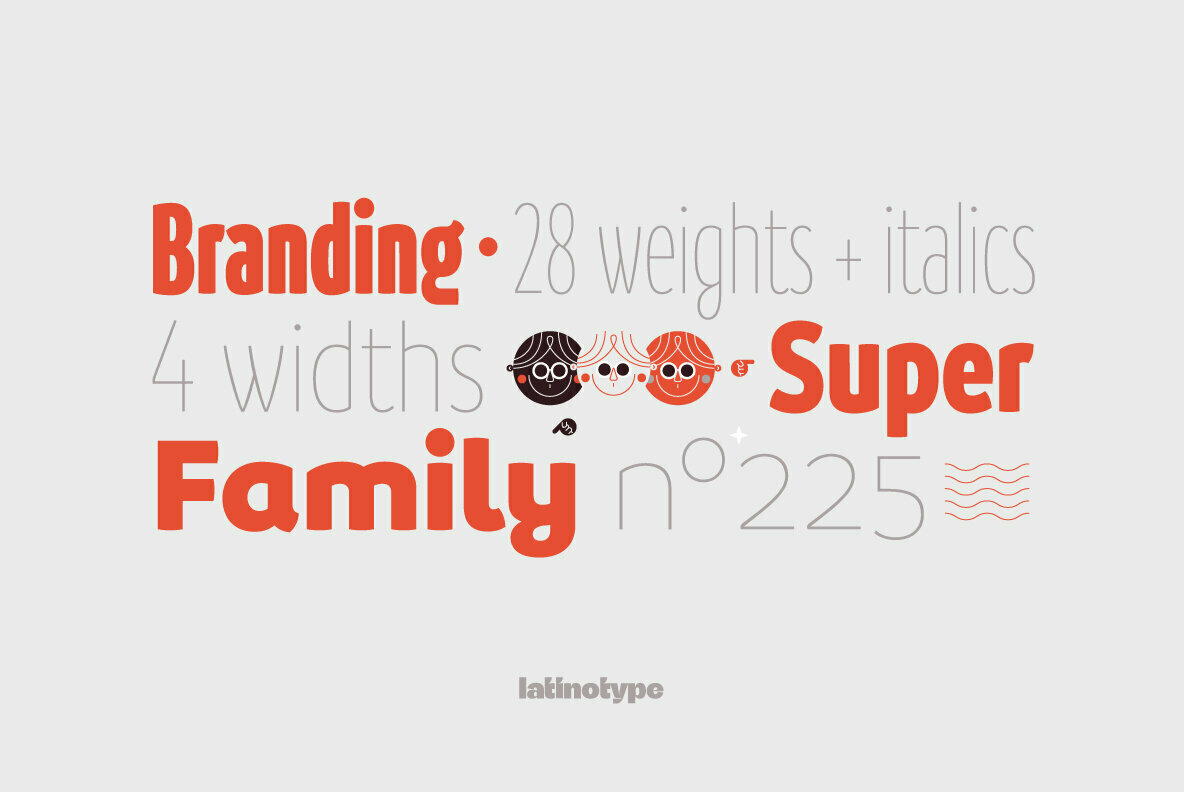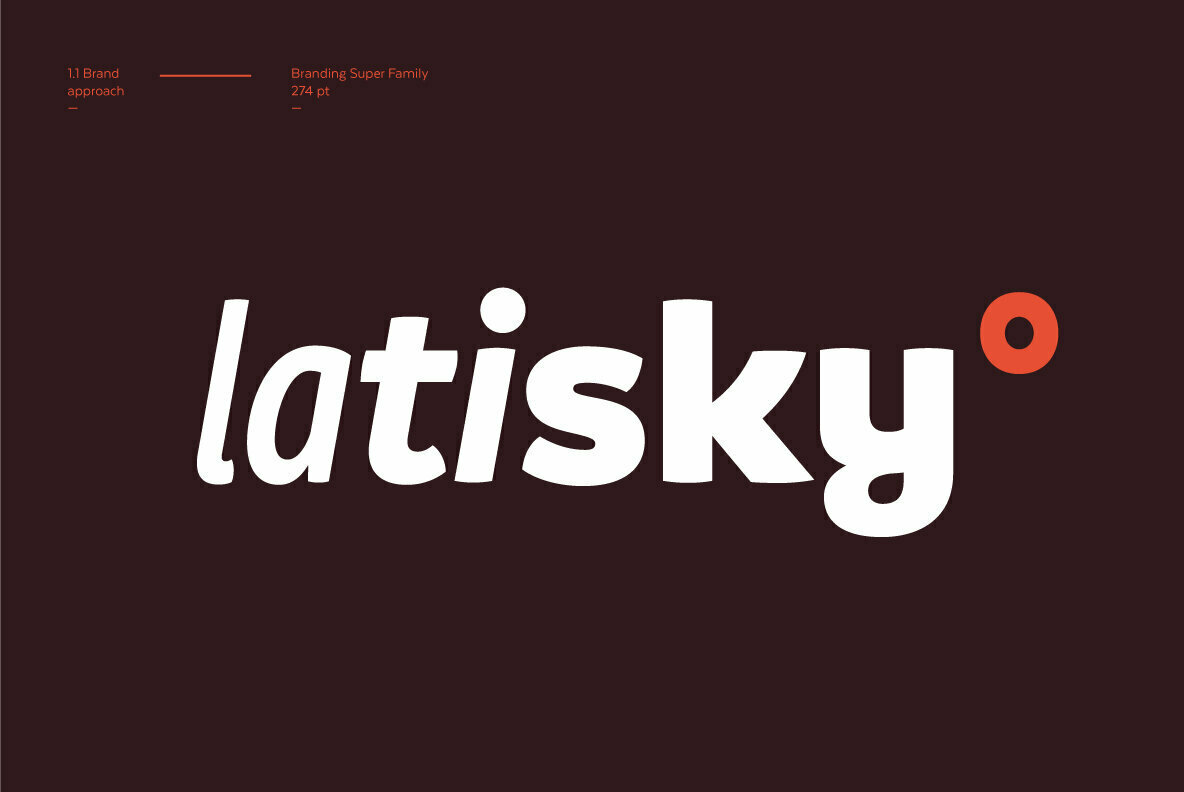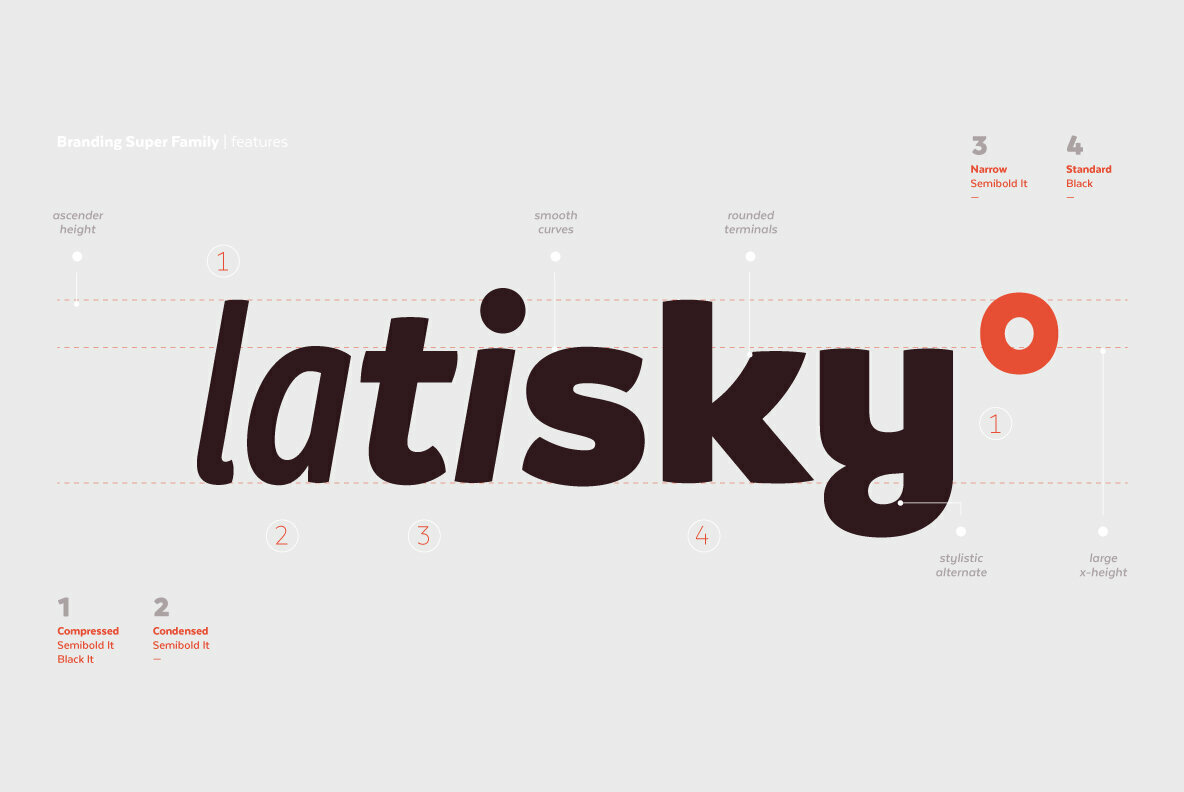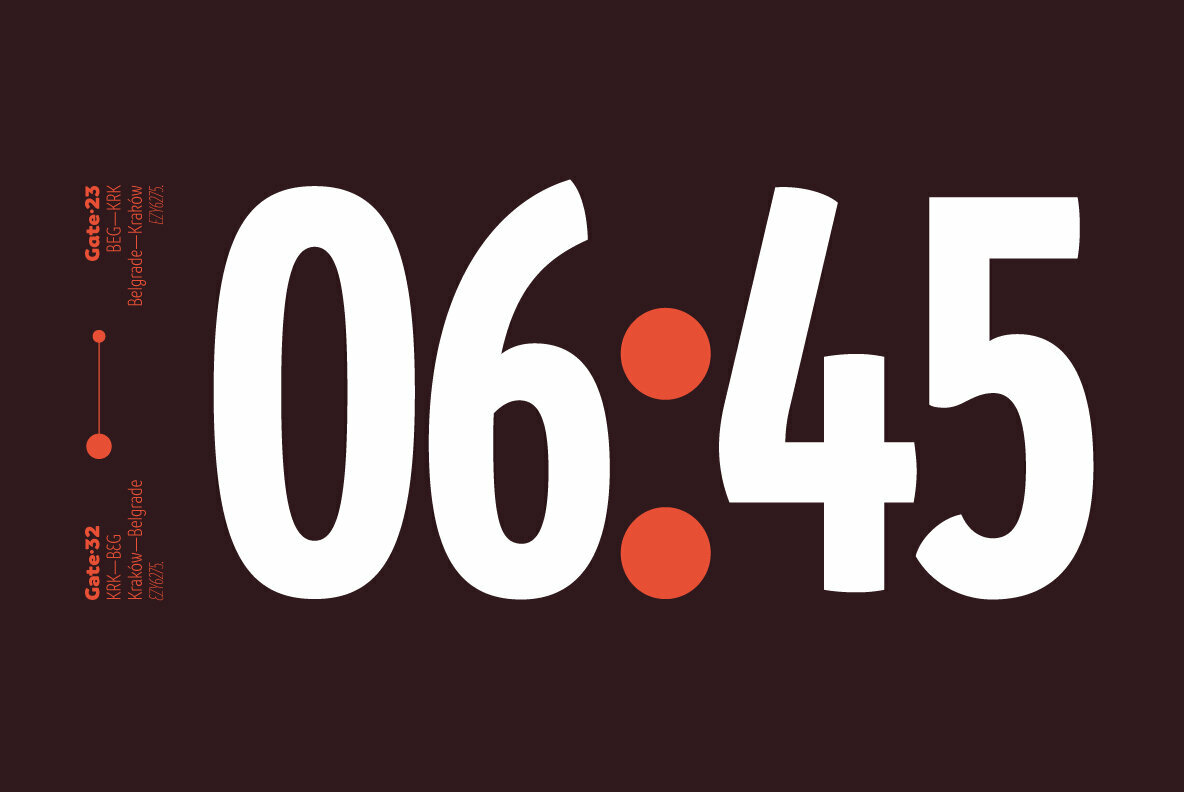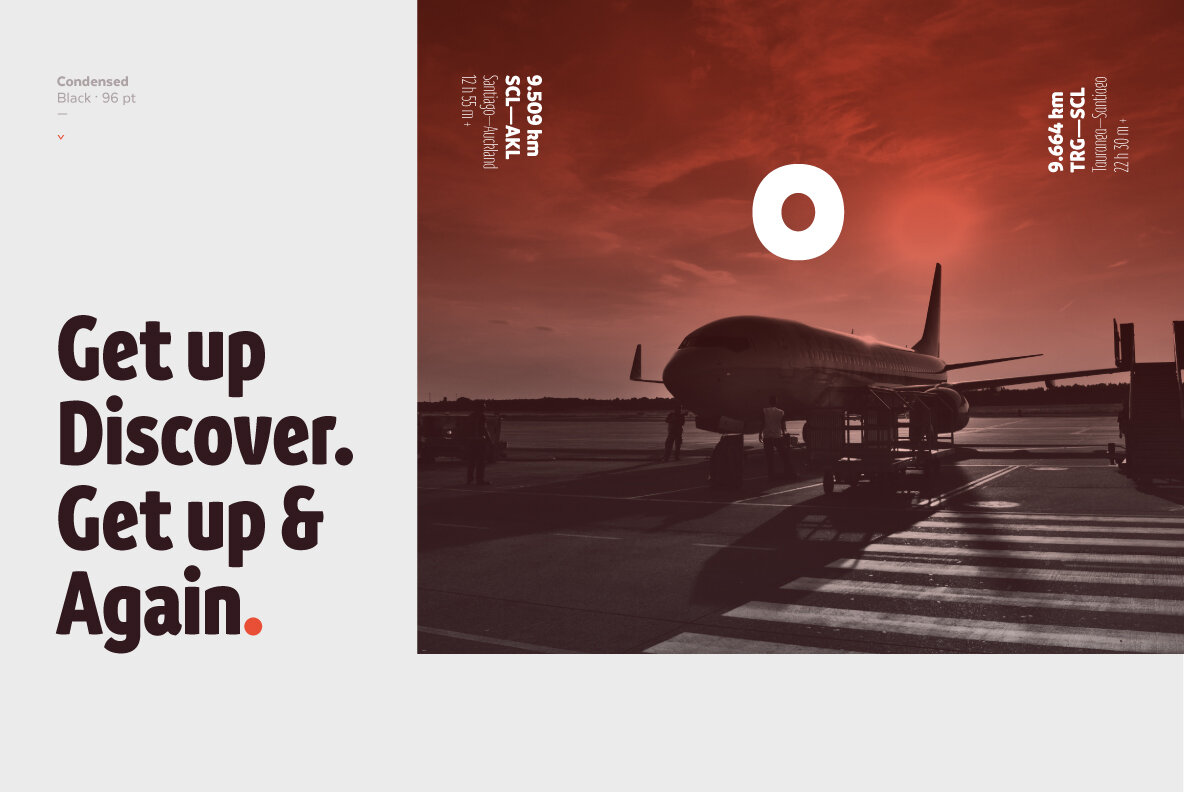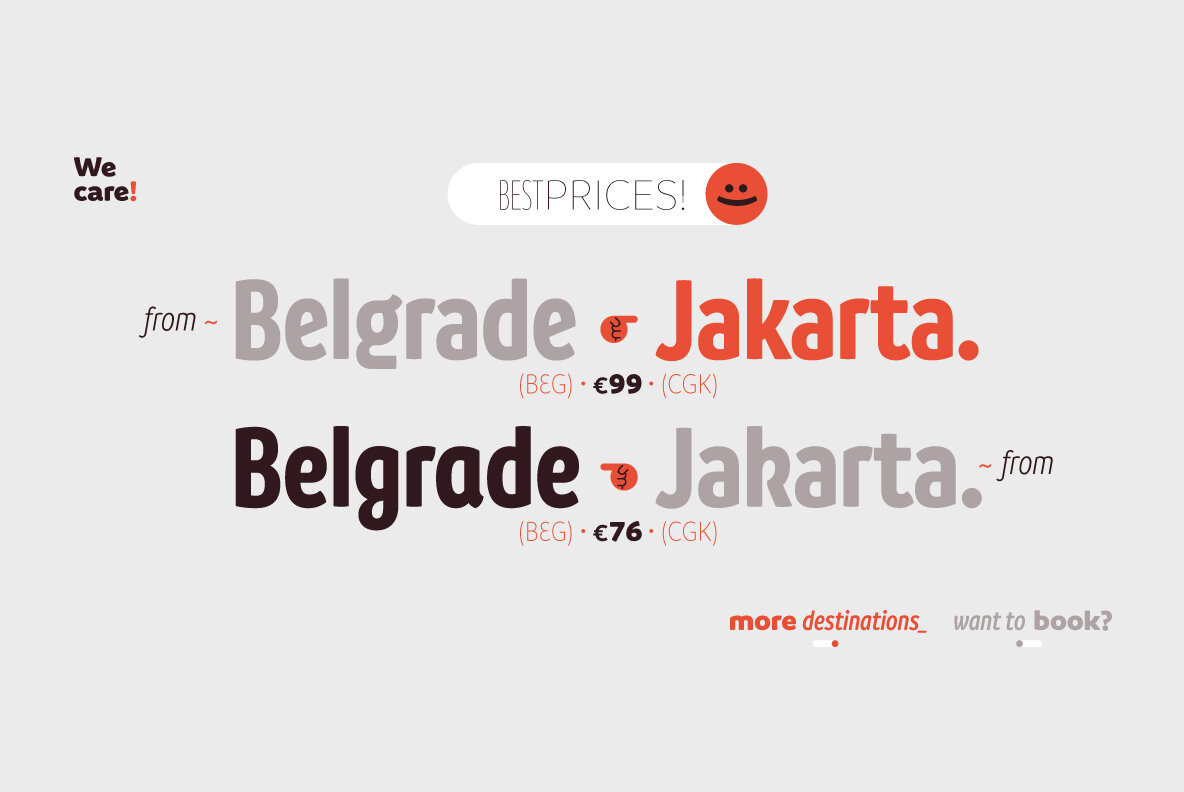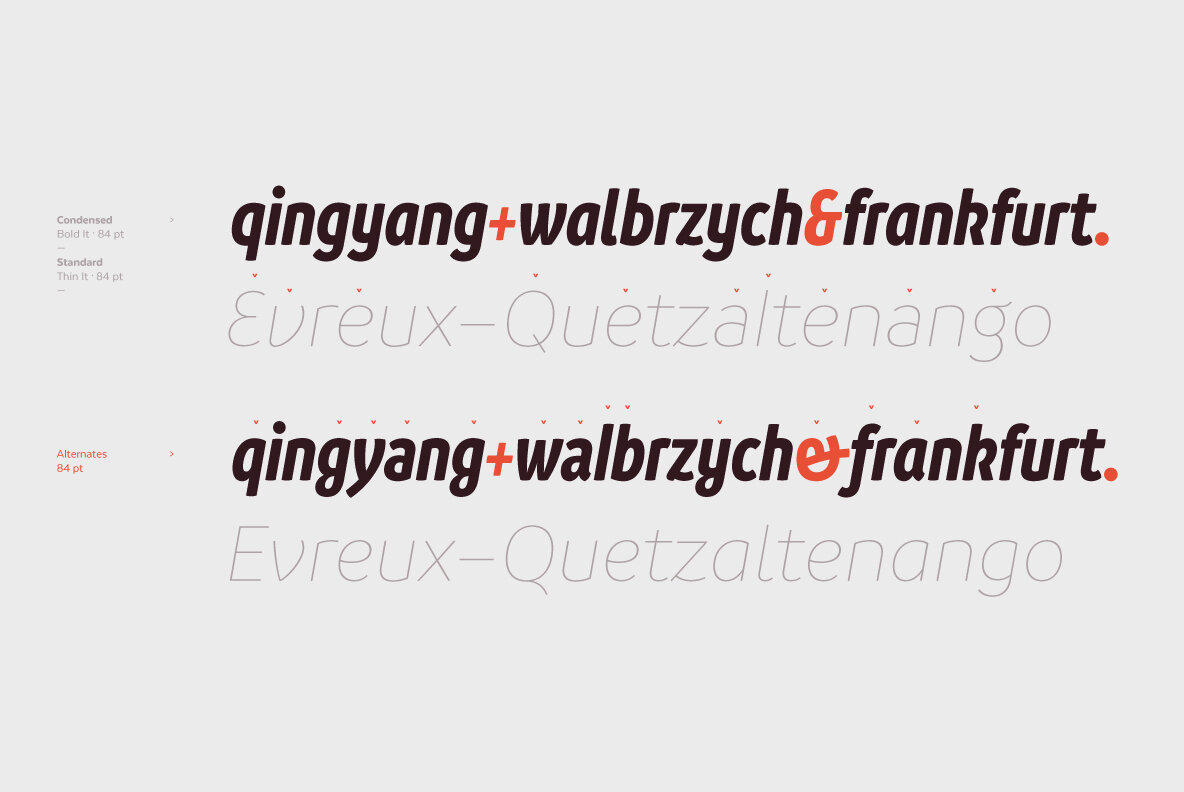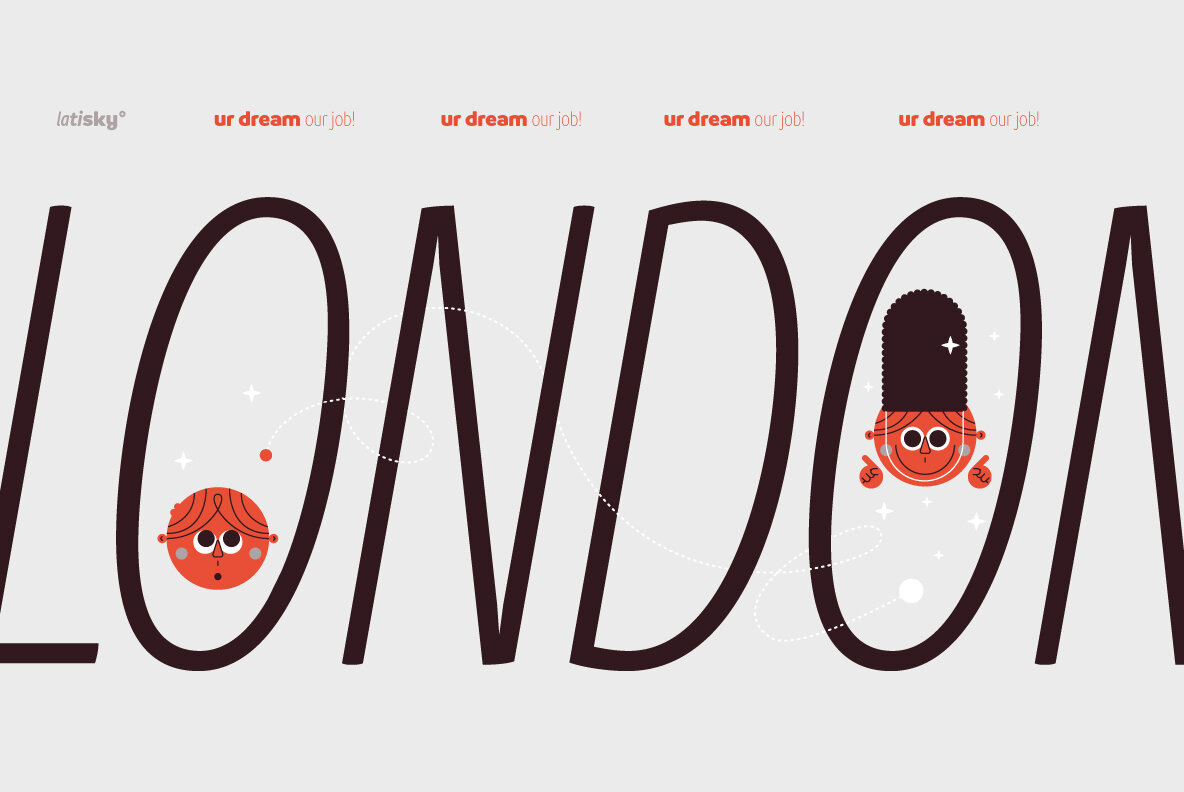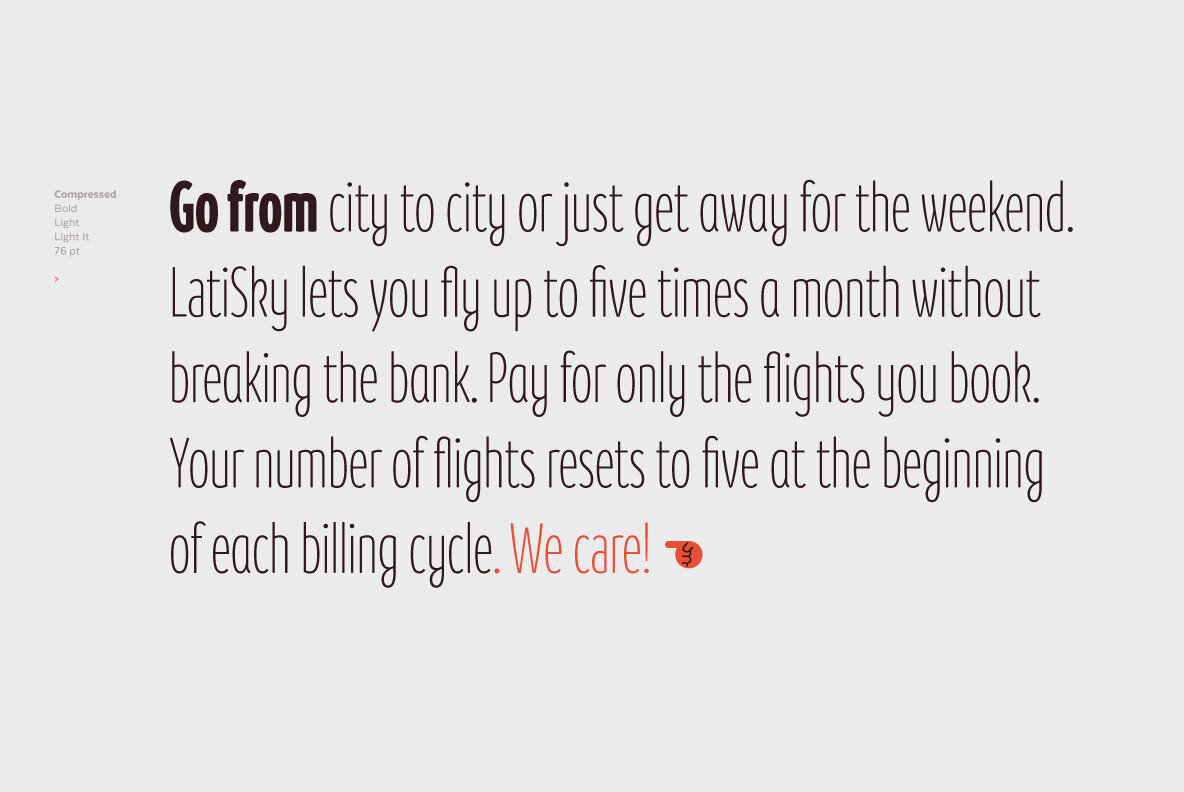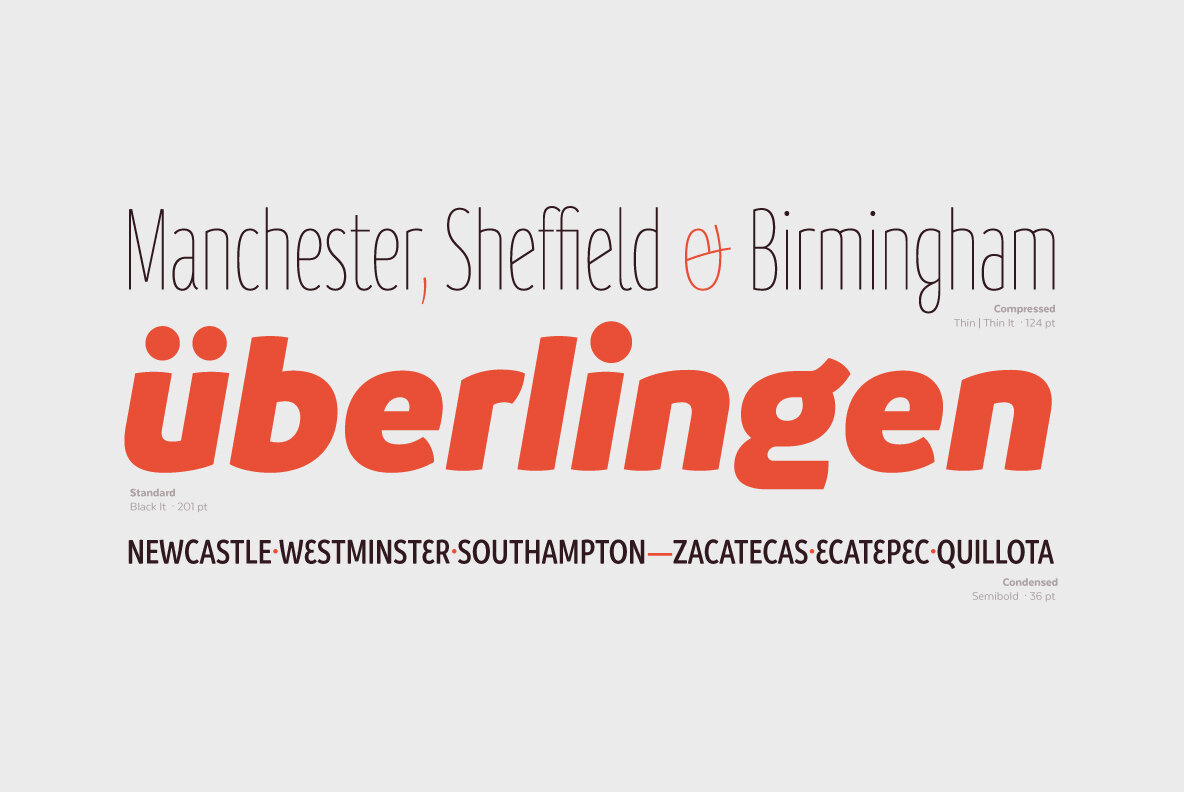
Branding SF Font
Branding Super Family- A Versatile Typeface for Today's Needs!
Branding SF, an extended version of the original Branding design, is a multi-style font suitable for a wide range of applications while still maintaining its essence.
In addition to its unique design, Branding SF includes a variety of widths (Branding Compressed is now a reality!) and alternate characters that make it an ideal tool for graphic designers and art directors. Branding Super Family is the perfect choice for logotypes, isotypes, short-form text, etc.
Branding SF is a sans-serif spurless typeface with medium to large x-height, rounded shapes and convex terminals. The font comes in 7 weights (ranging from thin to black) and 4 widths (from compressed to standard) with matching italics. Branding SF contains a set of 544 characters with support for 128 different languages and includes OpenType features such as European diacritics and old style figures plus 4 sets of alternates.